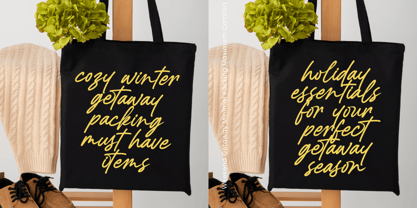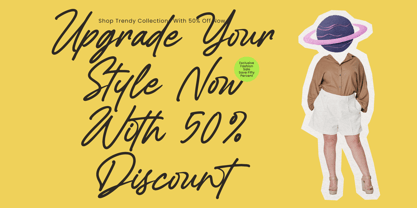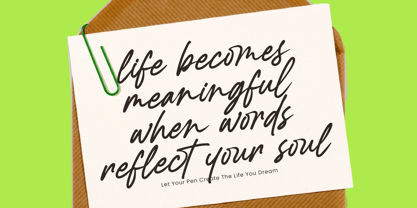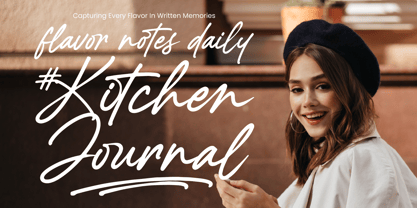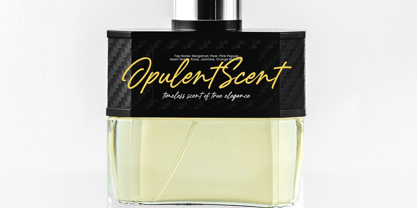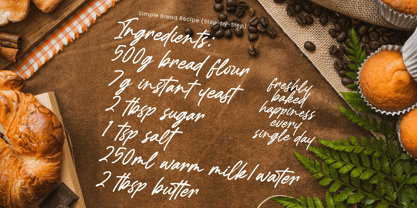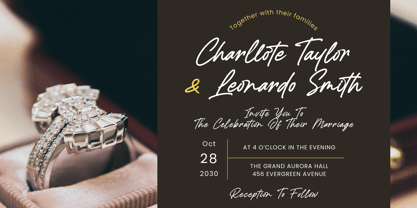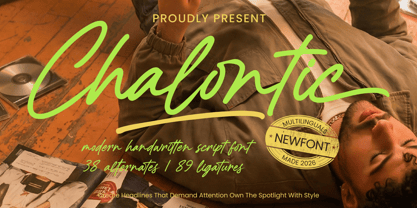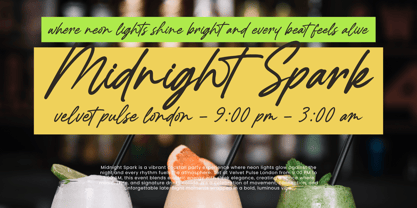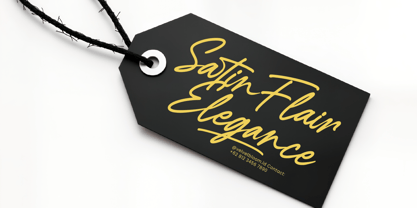
Chalontic
The Chalontic Font Family was designed by Heru Utama Putra and published by Letterena Studios. Chalontic contains 2 styles and family package options. More about this family
Chalontic is a modern handwritten script font designed to deliver bold personality and effortless style. Featuring smooth strokes, natural flow, and expressive curves, this typeface captures the energy of authentic handwriting while maintaining strong visual impact. Perfect for branding, headlines, album covers, fashion campaigns, packaging, posters, and social media graphics, Chalontic helps your message stand out with confidence. With 38 alternates, 89 ligatures, and multilingual support, it offers extensive typographic flexibility for seamless letter combinations and unique stylistic variations. Whether used in print or digital media, Chalontic brings contemporary charm, dynamic movement, and headline-ready presence to every design.